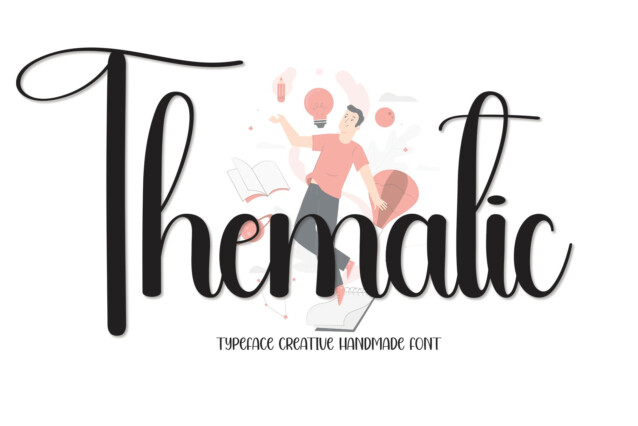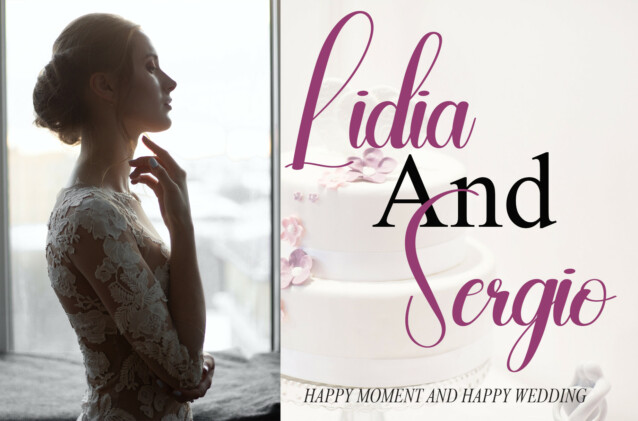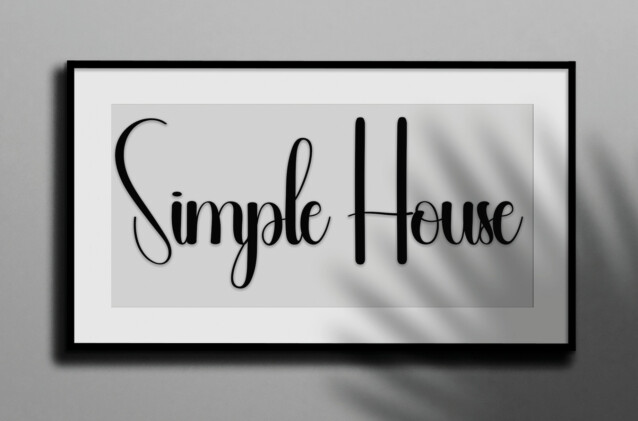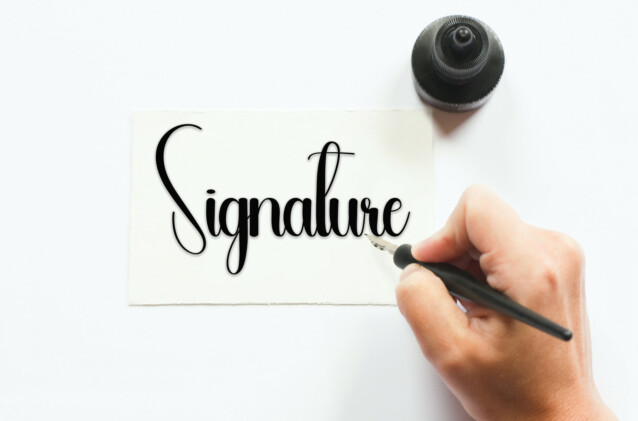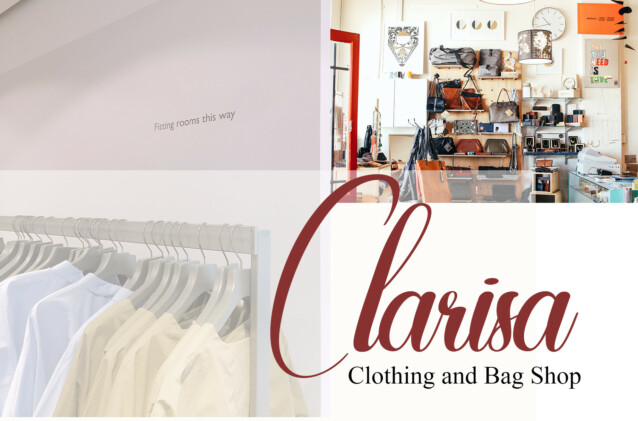
Thematic Script Font
Thematic Script Font is a sweet and friendly handwritten display font. Cute and fun, this font is ideal for writing wedding invitations, cards, or any other design that might need a playful touch!